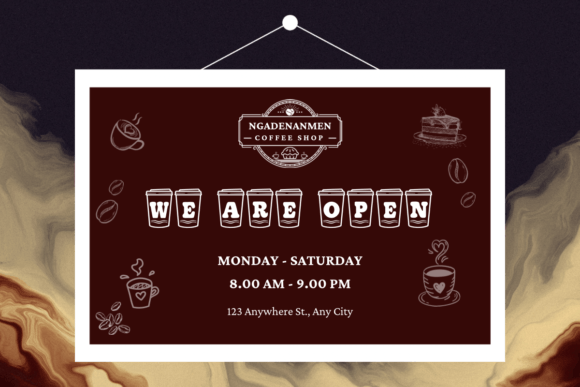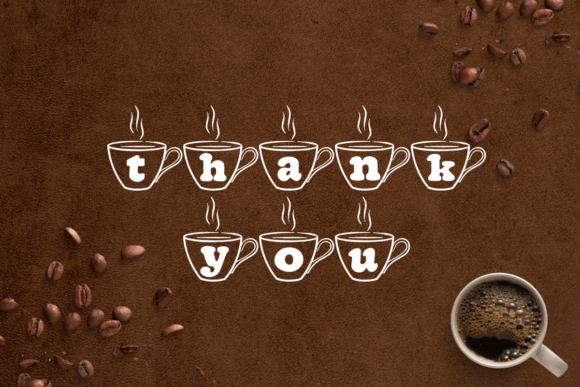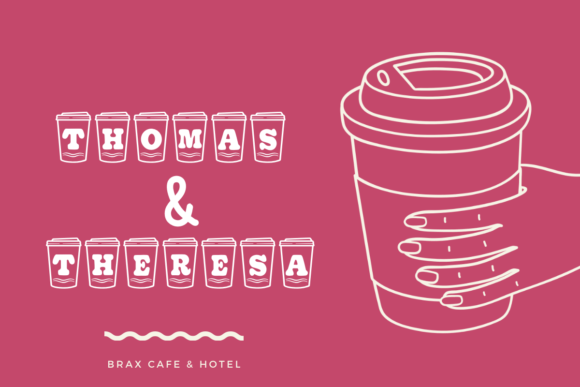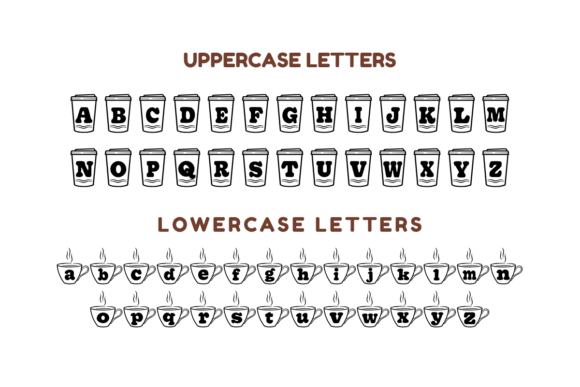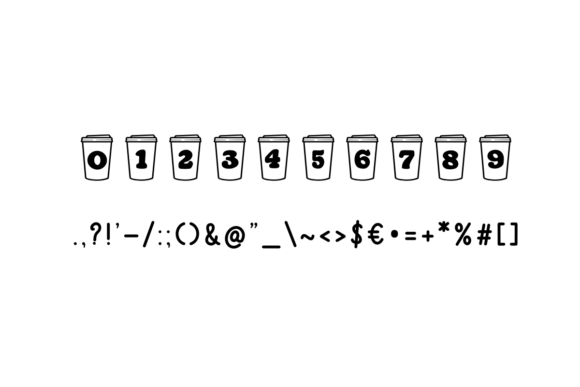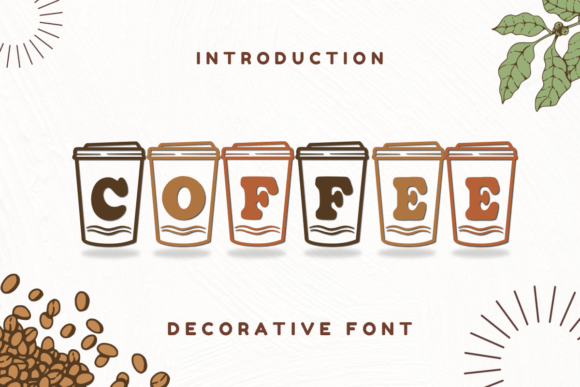
Coffee Font: The Perfect Addition to Your Design Collection
Are you a designer or crafter looking for a unique and playful font to add to your collection? Look no further than the Coffee Font! This adorable decorative font is sure to bring a joyful touch to your designs and set them apart from the rest. In this article, we’ll dive into the details of the Coffee Font, its features, and how you can use it to elevate your creative projects.
What is Coffee Font?
Coffee Font is a cute and quirky decorative font that is perfect for adding a touch of whimsy to your designs. Its playful and carefree vibe makes it ideal for projects that require a bit of personality and flair. Whether you’re working on a logo, branding materials, or social media graphics, the Coffee Font is sure to make your designs stand out.
Features of Coffee Font
So, what makes the Coffee Font so special? Here are just a few of its key features:
- Unique and playful design: The Coffee Font has a one-of-a-kind design that’s sure to grab attention.
- Highly versatile: This font can be used for a wide range of projects, from logos and branding materials to social media graphics and more.
- Easy to read: Despite its playful design, the Coffee Font is still easy to read, making it perfect for use in a variety of contexts.
- Scalable: The Coffee Font is highly scalable, meaning it will look great whether you’re using it for a small project or a large one.
How to Use Coffee Font in Your Designs
Now that we’ve covered the features of the Coffee Font, let’s talk about how you can use it in your designs. Here are a few ideas to get you started:
- Logos and branding materials: The Coffee Font is perfect for creating unique and memorable logos and branding materials.
- Social media graphics: Add a playful touch to your social media graphics with the Coffee Font.
- Invitations and party decor: The Coffee Font is perfect for creating fun and playful invitations and party decor.
- Crafting projects: If you’re a crafter, you can use the Coffee Font to add a personal touch to your projects, such as scrapbooking, card making, and more.
Tips for Using Coffee Font
Here are a few tips to keep in mind when using the Coffee Font in your designs:
- Use it sparingly: While the Coffee Font is playful and fun, it can be overwhelming if used too much. Use it sparingly to add a touch of whimsy to your designs.
- Pair it with other fonts: The Coffee Font pairs well with other fonts, so don’t be afraid to experiment with different combinations.
- Experiment with colors: The Coffee Font looks great in a variety of colors, so don’t be afraid to experiment and find the perfect hue for your design.
In conclusion, the Coffee Font is a unique and playful decorative font that’s perfect for adding a touch of whimsy to your designs. Its highly versatile design makes it suitable for a wide range of projects, from logos and branding materials to social media graphics and more. With its easy-to-read design and scalable features, the Coffee Font is sure to become a staple in your design collection.